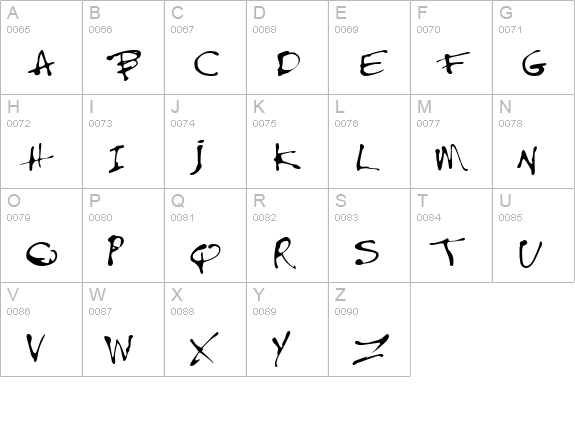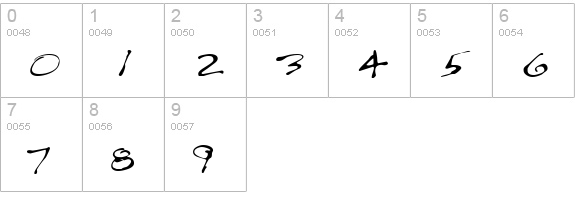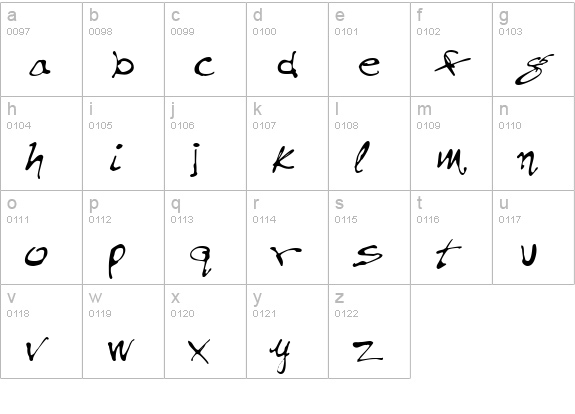
PFInkPen Unicode Font Details
Introducing PFInkPen Unicode font, a whimsical and creative typeface perfect for adding a playful touch to your design projects. This unique font features hand-drawn strokes and a charming handwritten style, making it ideal for projects that require a personal and friendly feel. PFInkPen Unicode font is not only visually appealing but also versatile, suitable for a wide range of design applications such as greeting cards, invitations, posters, branding, and more. Its distinctive character set includes a variety of glyphs that add a fun and dynamic element to your text. The best part? PFInkPen Unicode font is available for free download at FontsMarket.com, making it easily accessible for designers looking to add a touch of whimsy to their creations. Don't miss out on this delightful font that will bring a sense of joy and creativity to your projects.